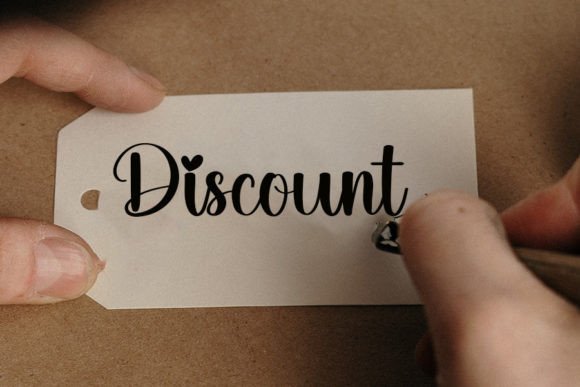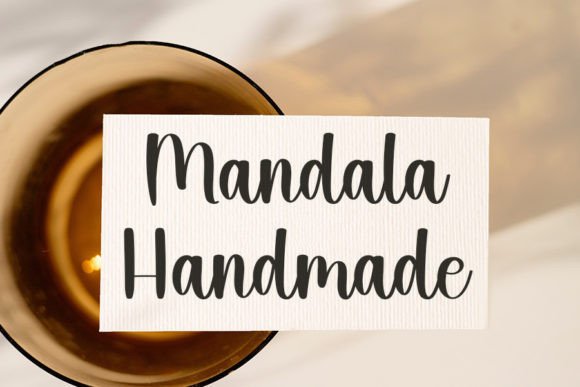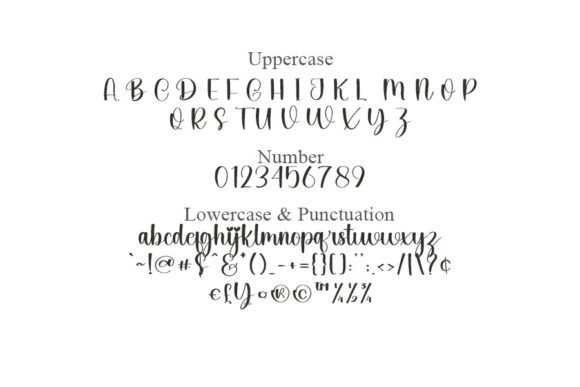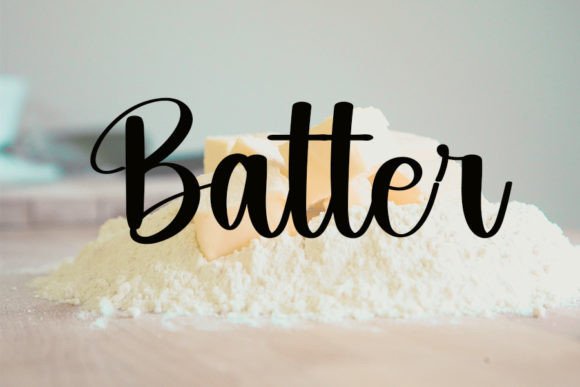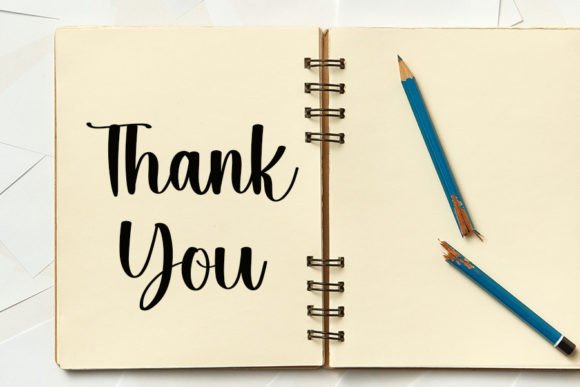
Introducing Heart Font: Elevate Your Designs with Elegance and Class
In the world of typography, fonts play a crucial role in conveying the tone and personality of a design. For designers and crafters seeking to add a touch of sophistication and elegance to their projects, Heart Font is an exceptional choice. This trendy handwritten font boasts a contemporary atmosphere and impeccable form, drawing inspiration from timeless classic calligraphy.
The Essence of Heart Font
Heart Font is a beautiful, handcrafted typeface that exudes refinement and poise. Its unique blend of traditional calligraphy and modern sensibilities makes it an ideal choice for a wide range of design applications, from wedding invitations and branding materials to packaging and digital media. With Heart Font, you can add a dash of luxury and glamour to your designs, setting them apart from the ordinary.
Key Features of Heart Font
• Trendy and Contemporary: Heart Font features a fresh and modern aesthetic that will instantly elevate your designs.
• Handwritten with Love: This font is carefully crafted with attention to detail, ensuring a personal and human touch.
• Inspired by Classic Calligraphy: Heart Font draws inspiration from traditional calligraphy, adding a sense of timelessness and sophistication.
• Impeccable Form: The font’s precise and elegant letterforms ensure perfect readability and aesthetics.
• Multilingual Support: Heart Font supports multiple languages, making it a versatile choice for global designs.
Design Applications for Heart Font
Heart Font’s versatility makes it suitable for a wide range of design projects, including:
• Wedding Invitations: Add a touch of romance and elegance to your wedding stationery.
• Branding and Packaging: Create luxurious brand identities and packaging that exudes high-end quality.
• Digital Media: Use Heart Font in social media graphics, blog headers, and website designs to add a touch of sophistication.
• Stationery and Greeting Cards: Create beautiful, high-end stationery and greeting cards that will leave a lasting impression.
Tips for Using Heart Font Effectively
To get the most out of Heart Font, consider the following tips:
• Pair with Neutral Backgrounds: Allow Heart Font to shine by pairing it with neutral backgrounds that won’t compete for attention.
• Experiment with Colors: Try pairing Heart Font with rich, bold colors to create a striking contrast.
• Use for Headlines and Titles: Heart Font is perfect for headlines and titles, adding a touch of elegance and sophistication.
• Mix with Other Fonts: Combine Heart Font with other fonts to create a unique and visually appealing typography.
Heart Font is a stunning, handwritten font that will add a touch of elegance and class to any design project. Its unique blend of traditional calligraphy and modern sensibilities makes it an exceptional choice for designers and crafters seeking to create high-end designs. With its impeccable form, trendy aesthetic, and multilingual support, Heart Font is the perfect addition to your typography collection.